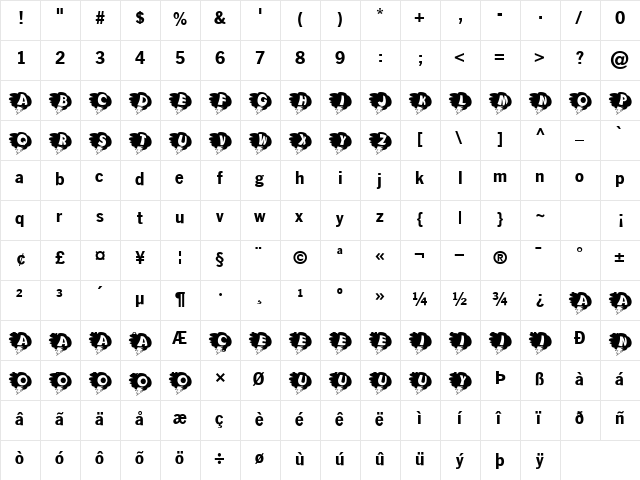
KAStorm Regular Font Preview
KAStorm Regular
KAStorm Regular Font Details
Design Context for KAStorm Typeface
KAStorm is a composed and adaptable typeface that performs quietly and consistently across a wide range of design contexts.
Pro Tip: Use KAStorm in both headline and body roles to test its range before committing to a single application.